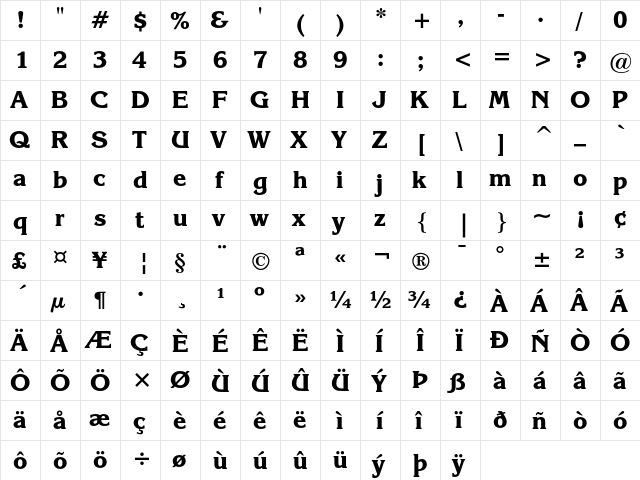
ITC Korinna Extra Bold Font Preview
ITC Korinna Extra Bold
Design Context for ITC Korinna Typeface
ITC Korinna is a composed and adaptable typeface that performs quietly and consistently across a wide range of design contexts. The heavy weight commands attention and anchors typographic hierarchies.
Pro Tip: Use ITC Korinna in both headline and body roles to test its range before committing to a single application.